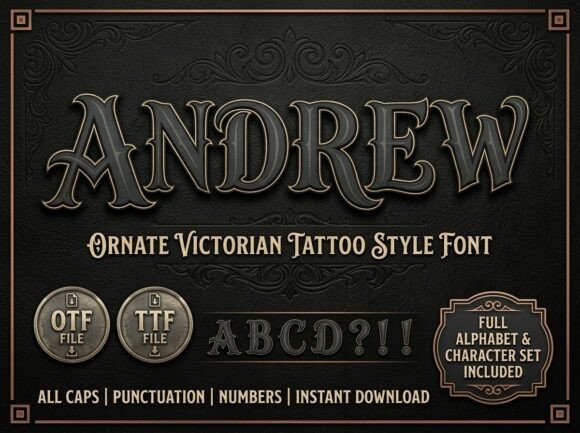
The Timeless Charm of Andrew: An Ornate Victorian Tattoo Style Font
I’ll never forget the design project that led me to discover the Andrew font. I was working on a branding project for a vintage-inspired barbershop, and I was struggling to find the perfect font to capture the essence of traditional tattoo artistry. The client wanted something bold, eye-catching, and reminiscent of the Victorian era. After hours of searching, I stumbled upon Andrew, and it was love at first sight. ✨
This ornate Victorian tattoo style font has since become a staple in my design toolkit, and I’m excited to share its beauty with you. In this article, we’ll dive into the world of Andrew, exploring its features, uses, and alternatives.
An Honest Review of Andrew
- ✅ Bold and attention-grabbing: Andrew’s chiseled letterforms and intricate filigree-inspired accents make it perfect for high-impact designs.
- ✅ Versatile: This all-caps typeface can be used for a variety of projects, from barbershop branding to craft spirit labels and apparel design.
- ✅ Elegant and gritty: Andrew strikes the perfect balance between old-world sophistication and edgy, vintage charm.
While Andrew is an amazing font, it’s not without its quirks. ⚠️ Keep in mind that:
- 🤔 It’s an all-caps font: While this adds to its boldness, it may not be suitable for designs that require lowercase letters.
- 🤔 Some characters may require manual kerning: As with any font, you may need to adjust the kerning to ensure optimal spacing.
If you love Andrew, you may also enjoy these similar fonts:
- Rochester: A elegant, Victorian-inspired script font with a similar ornate feel.
- Bramble: A bold, tattoo-inspired font with a rugged, distressed look.
- Playfair Display: A luxurious, high-end serif font with a similar sense of sophistication.
- Great Vibes: A stylish, handwritten font with a similar blend of elegance and grit.
The Backstory of Andrew
Andrew is a design inspired by the traditional tattoo artistry of the Victorian era. Its creator, a fictional designer named Emma, was fascinated by the ornate, bold lettering of old-school tattoos. She spent months researching and experimenting with different styles, eventually crafting a font that captured the essence of this timeless art form. 💉
Q: Is Andrew suitable for body text?
A: While Andrew is a beautiful font, it’s best suited for display purposes, such as headings and titles. For body text, you may want to choose a more legible font. 📖